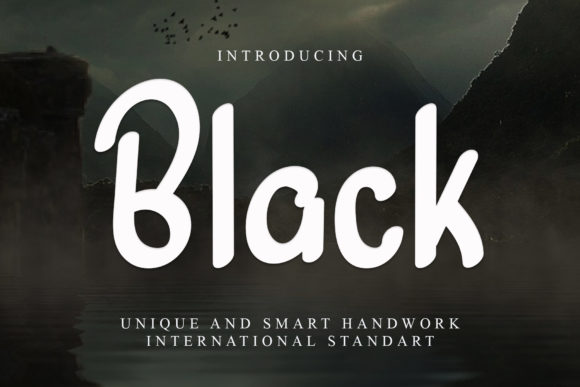
The Power of Black Font: Elevate Your Designs with a Cute and Casual Handwritten Style
I’ll never forget the time I was working on a project for a client who wanted a fun and playful vibe. I had spent hours browsing through font libraries, but nothing seemed quite right. That was when I stumbled upon Black Font, a beautiful handwritten font that instantly caught my eye. In this article, I’ll share my experience with Black Font, its features, and how to make the most of it in your designs.
A Personal Review of Black Font
So, what makes Black Font so special? Let’s dive into the good stuff! 😊
- ✨ Cute and casual: Black Font has a charming, laid-back feel that’s perfect for designs that need a personal touch.
- ✅ Easy to read: Despite its casual nature, Black Font is surprisingly legible, even at smaller sizes.
- 💕 Versatile: This font can be used for a wide range of projects, from branding and packaging to social media graphics and invitations.
Of course, no font is perfect, and Black Font has a few quirks to be aware of:
- 🤔 Limited formal use: Due to its casual nature, Black Font may not be the best choice for formal or professional designs.
- ⚠️ Some letter variations: A few letters, like ‘Q’ and ‘q’, have slightly different designs, which can be jarring if not used thoughtfully.
The Story Behind Black Font
Black Font was designed with the goal of creating a beautiful, refreshing handwritten font that’s both cute and casual. The designer aimed to craft a font that’s easy to read and versatile enough for a wide range of projects.
| Font Name | Black Font |
| Author | GiaLetter |
| What is Black Font best used for? | Black Font is perfect for designs that need a cute and casual touch, such as social media graphics, invitations, and branding. |
| Is Black Font easy to read? | Yes, Black Font is surprisingly legible, even at smaller sizes. |